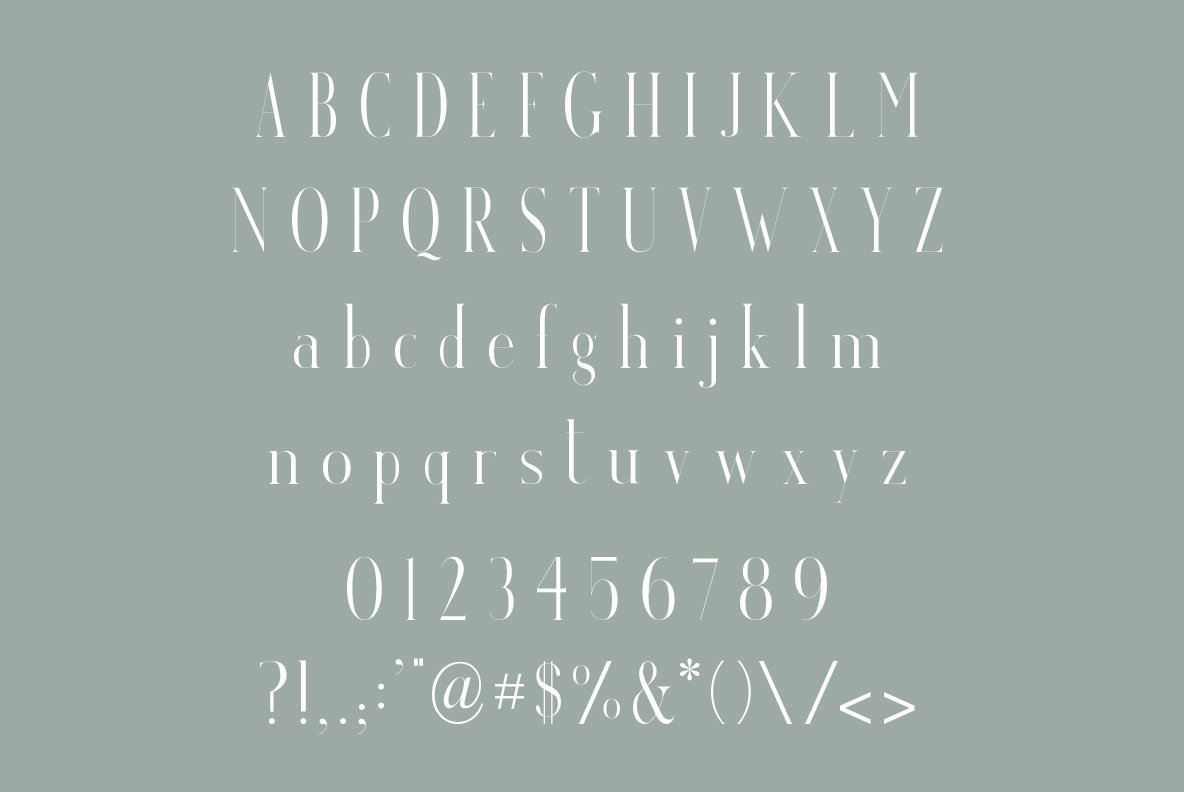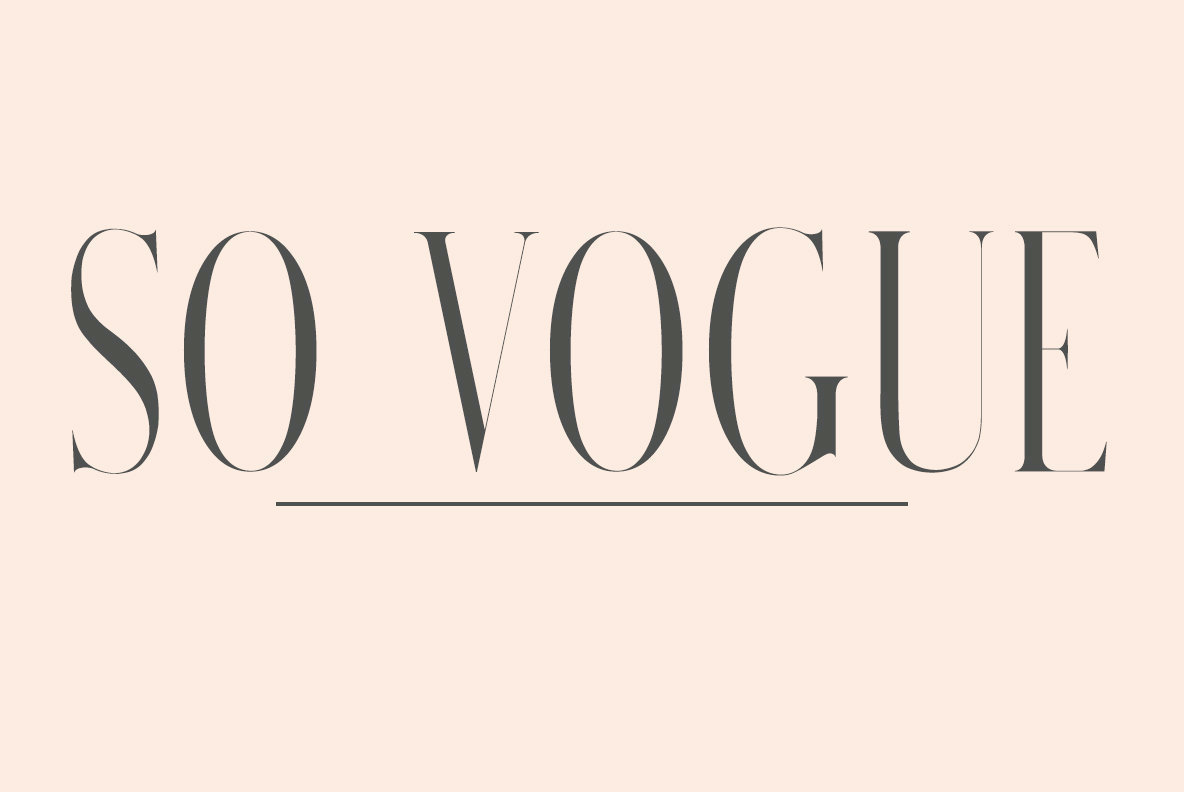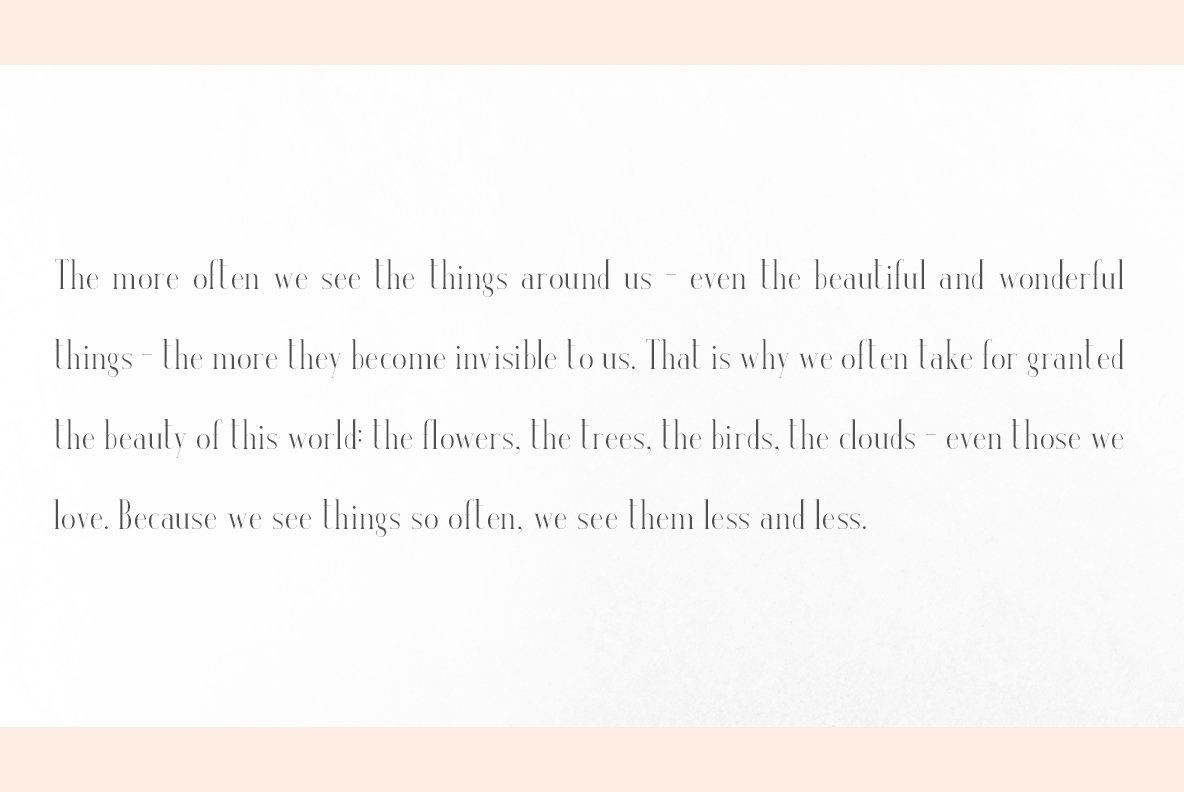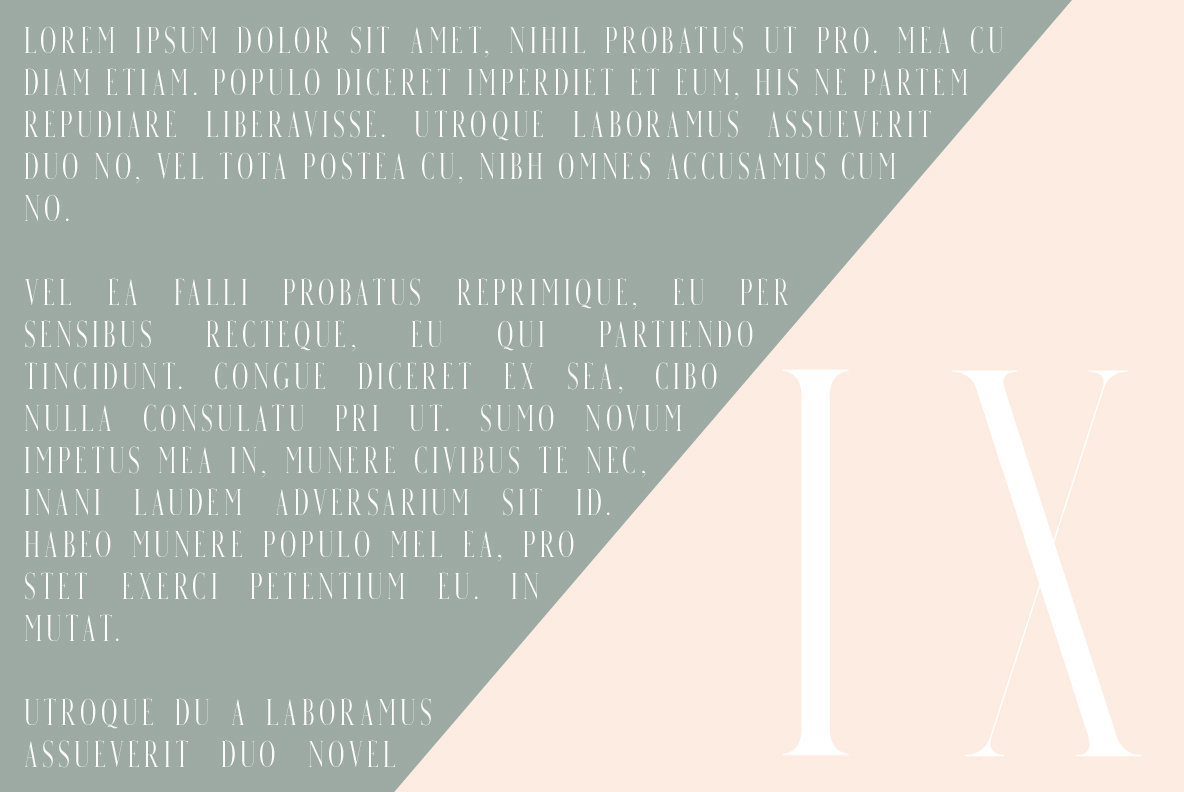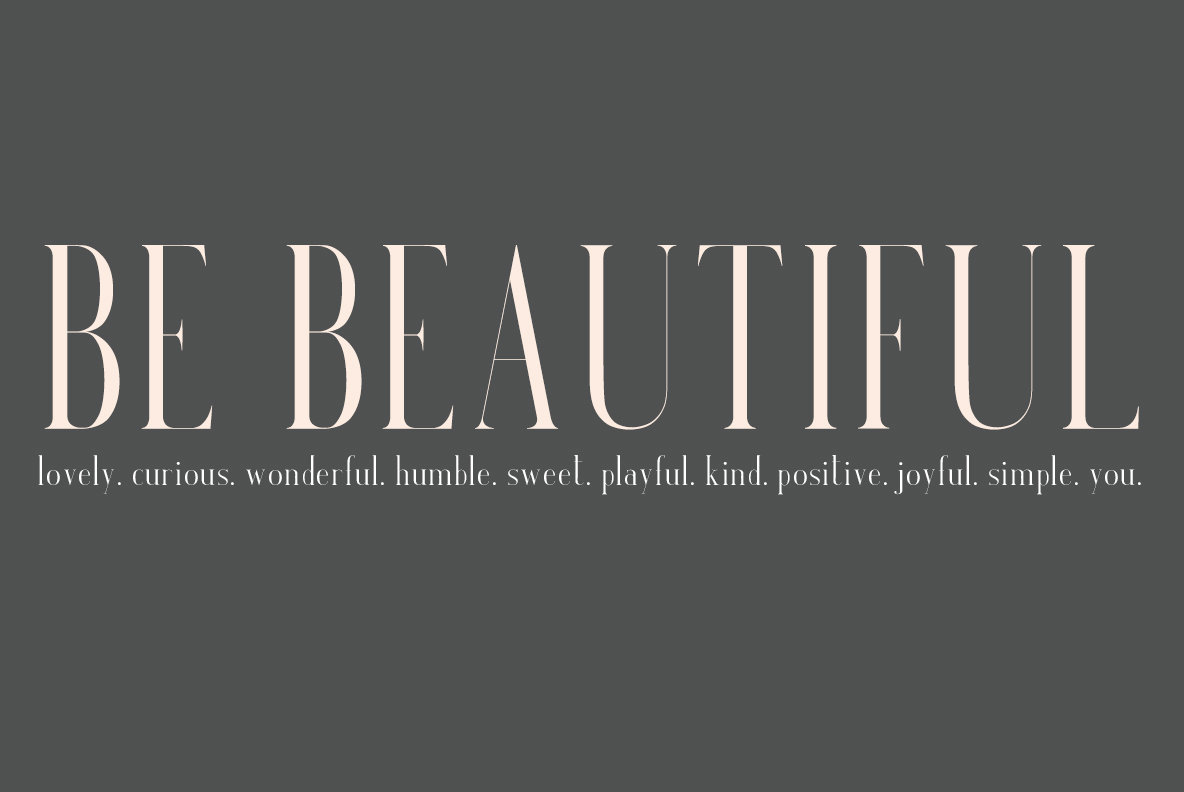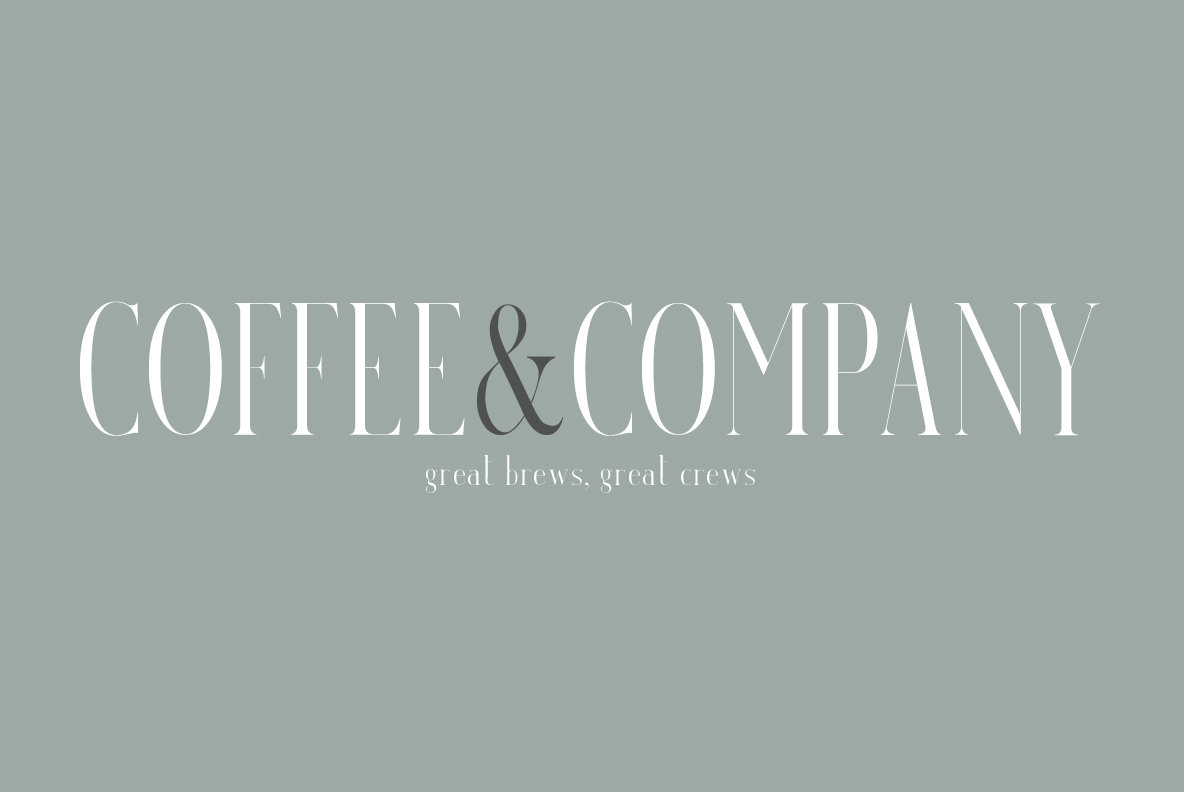
Venice 1
This minimalistic and beautiful serif typeface features sleek lines and thin serifs with a classic '90s Vogue feel. Perfect for gorgeous logos & titles, layouts & content, or large & small scale, Venice will pair beautifully with many fonts and work well with whatever project you're working on.